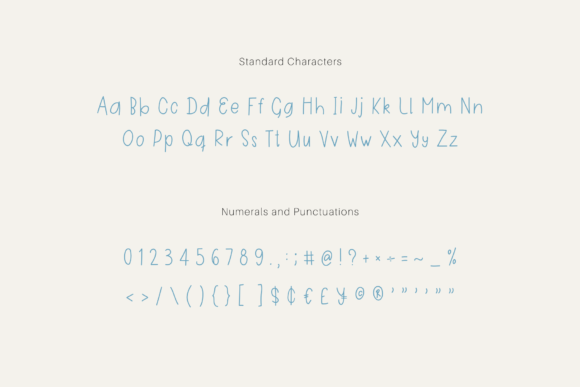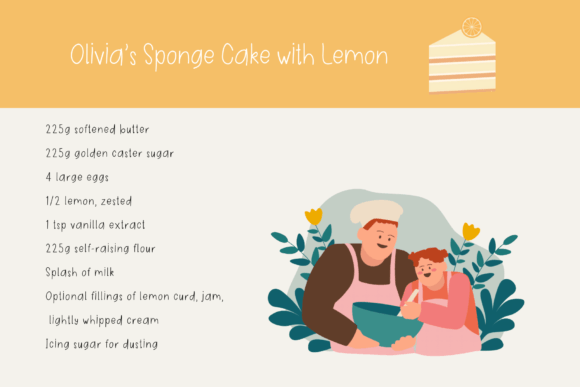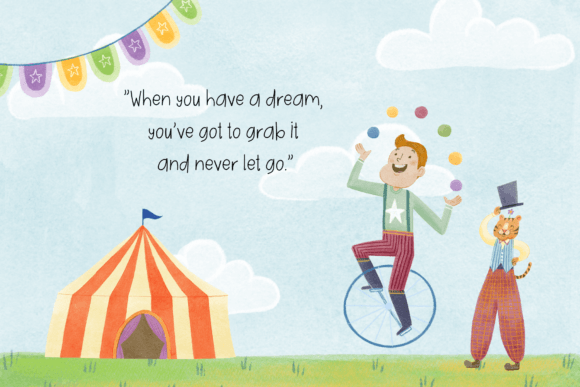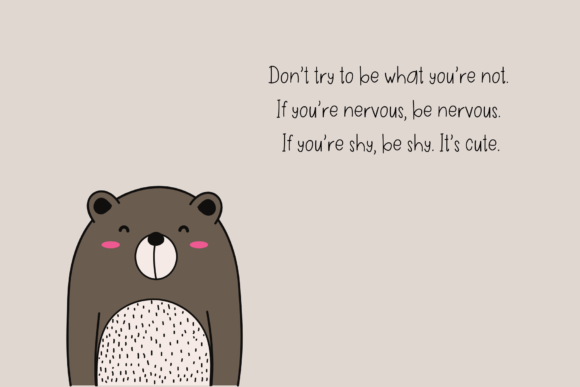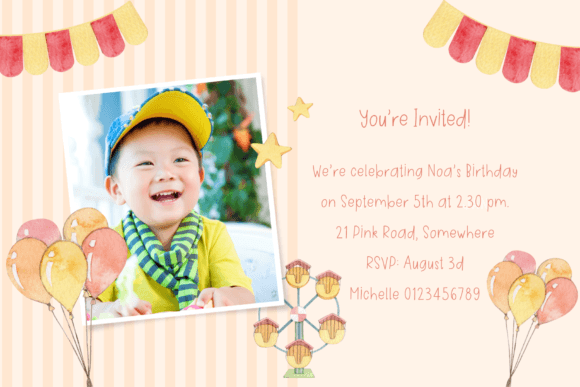
Einar Circuson Font: The Perfect Handwritten Companion for Designers and Crafters
Are you on the hunt for a font that adds a personal touch to your designs? Look no further than Einar Circuson, a charming handwritten font that’s perfect for a wide range of creative projects. In this article, we’ll dive into the world of Einar Circuson, exploring its features, uses, and benefits for designers and crafters alike.
What is Einar Circuson Font?
Einar Circuson is a beautiful, handwritten font that’s designed to bring a touch of warmth and personality to your designs. With its flowing lines and whimsical feel, this font is ideal for creating projects that require a personal and intimate touch. Whether you’re working on a journal page, a scrapbooking project, or a social media post, Einar Circuson is the perfect companion.
Features of Einar Circuson Font
So, what makes Einar Circuson so special? Here are just a few of its standout features:
- Cute and Lovely: Einar Circuson is a truly adorable font that’s sure to capture the hearts of designers and crafters alike. Its handwritten feel is both playful and charming, making it perfect for projects that require a personal touch.
- Versatile: This font is incredibly versatile, making it suitable for a wide range of projects, from journaling and digital notes to scrapbooking, invitations, branding, blog posts, Instagram, cards, social media, stickers, and more!
- Easy to Read: Despite its whimsical feel, Einar Circuson is surprisingly easy to read, making it perfect for body text and longer blocks of writing.
Uses for Einar Circuson Font
So, how can you use Einar Circuson in your designs? The possibilities are endless! Here are just a few ideas to get you started:
- Journaling: Add a personal touch to your journal pages with Einar Circuson. Use it to write out your thoughts, feelings, and reflections.
- Digital Notes: Create adorable digital notes and to-do lists with Einar Circuson. Perfect for adding a touch of personality to your digital workflow.
- Scrapbooking: Einar Circuson is a natural fit for scrapbooking projects. Use it to add captions, journaling, and other text elements to your pages.
- Invitations: Create beautiful, handwritten invitations for special occasions like weddings, birthday parties, and baby showers.
- Branding: Use Einar Circuson to add a personal touch to your brand’s marketing materials, such as business cards, brochures, and website headers.
- Blog Posts: Add a touch of personality to your blog posts with Einar Circuson. Perfect for bloggers who want to connect with their readers on a more personal level.
- Instagram: Use Einar Circuson to create adorable Instagram posts and stories. Perfect for adding a personal touch to your social media feed.
So, what are the benefits of using Einar Circuson for designers and crafters? Here are just a few:
- Unique and Personal: Einar Circuson allows designers and crafters to add a unique and personal touch to their projects. Perfect for creating one-of-a-kind designs that stand out from the crowd.
- Time-Saving: With Einar Circuson, designers and crafters can create beautiful, handwritten text without the need for hours of handwriting. A huge time-saver for projects that require a personal touch.
In conclusion, Einar Circuson is a truly special font that’s perfect for designers and crafters who want to add a personal touch to their projects. With its cute and lovely handwritten feel, versatility, and ease of use, Einar Circuson is the perfect companion for a wide range of creative projects. Whether you’re working on a journal page, a scrapbooking project, or a social media post, Einar Circuson is sure to bring a touch of warmth and personality to your designs.